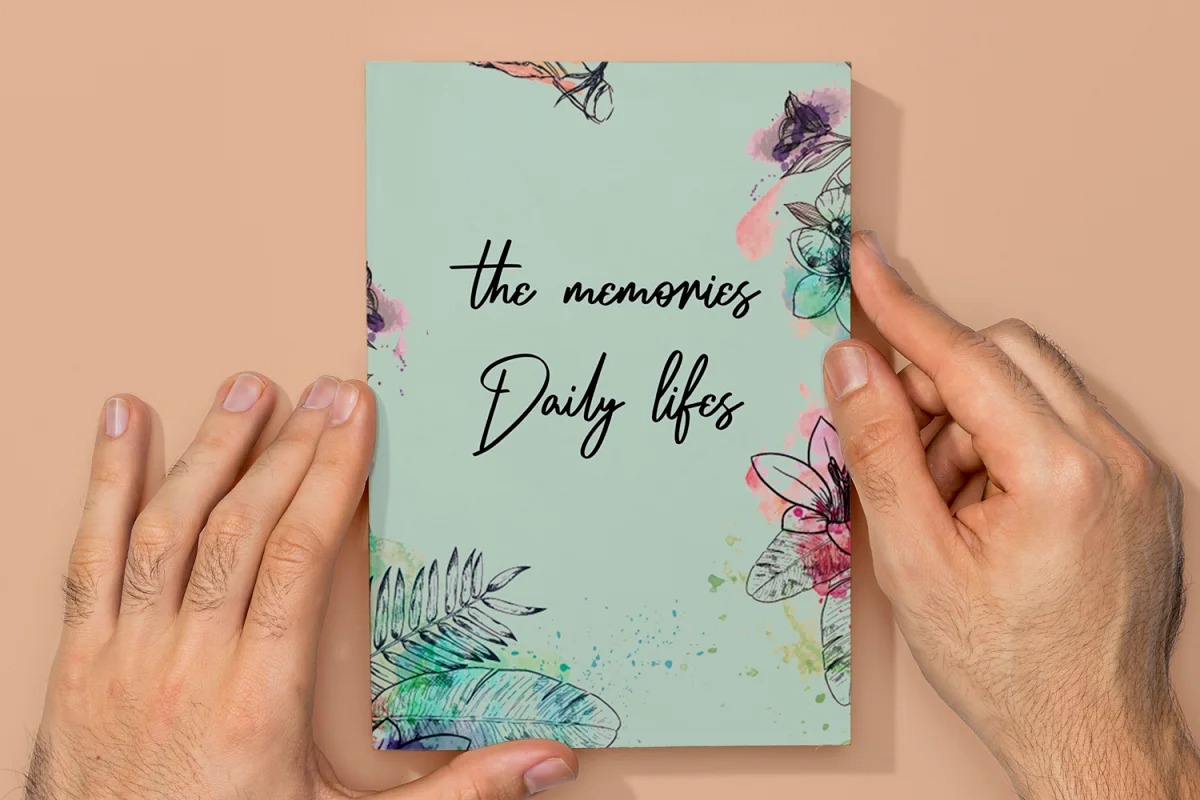
Northyhuny Font
Northyhuny Handwritten Font
This typeface is script handwritten style with a natural charm. This font that is a modern signature and unique style handmade comes with very beautiful character changes. Northyhuny signature script font support multilingual more than 100+ language. This font is good for logo design, Social media, Movie Titles, Books Titles, a short text even a long text letter and good for your secondary text font with sans or serif. Make a stunning work with Northyhuny signature font.